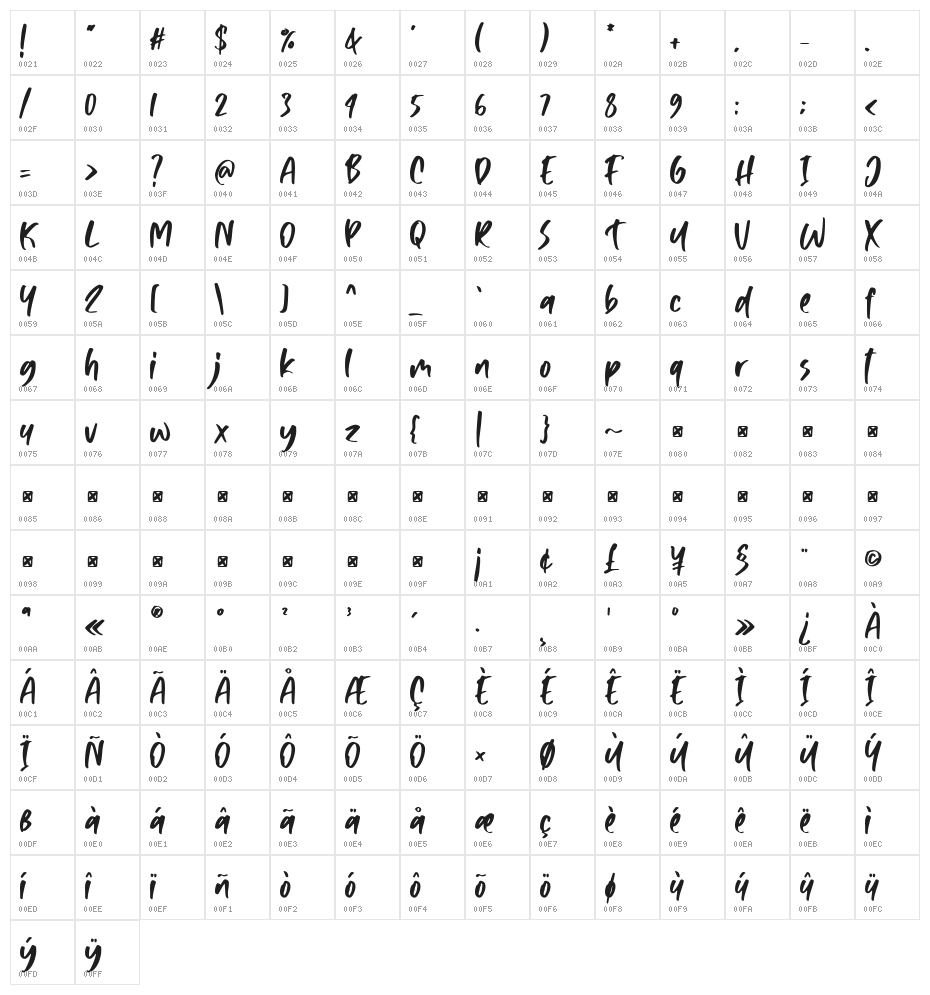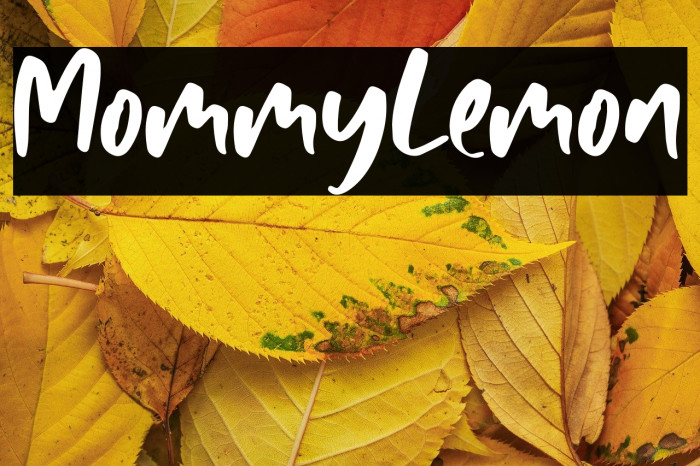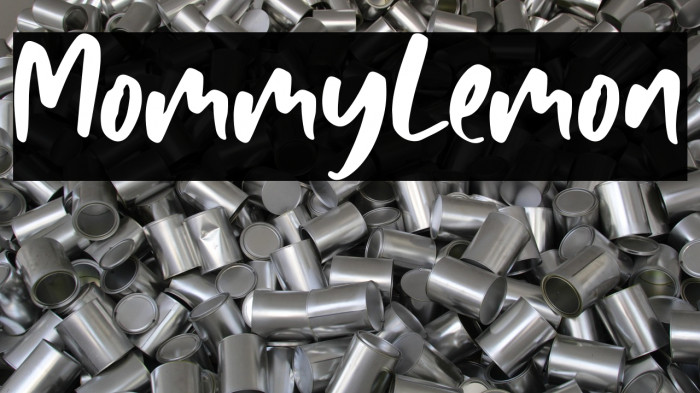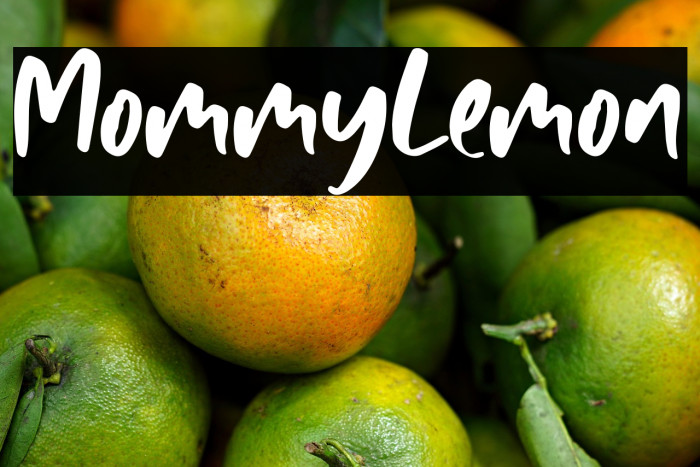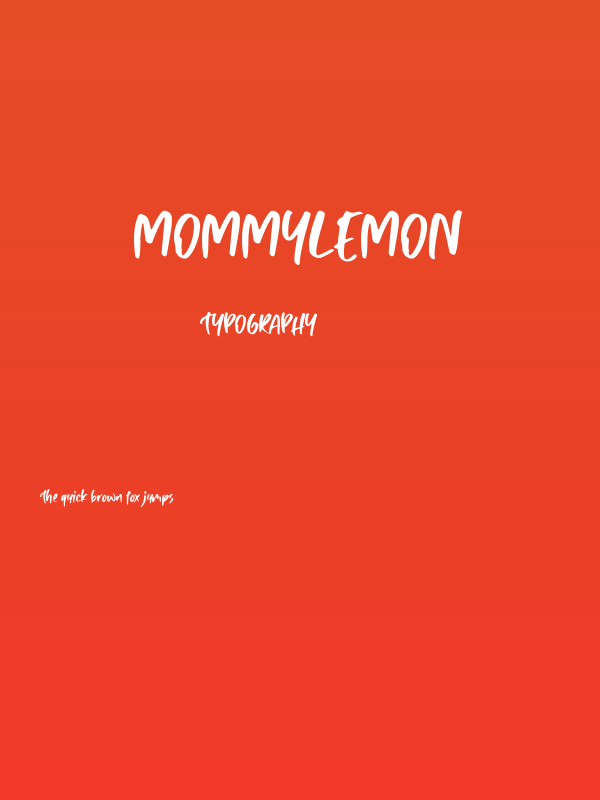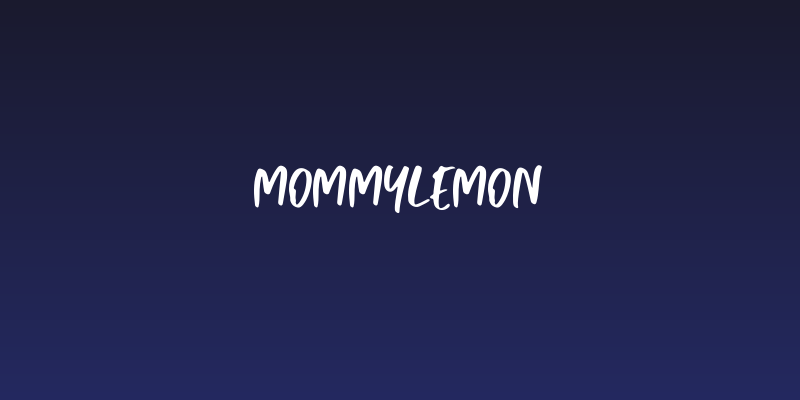
MommyLemon Font
MommyLemon Description
This font features a bold and expressive handwritten style, characterized by its fluid and dynamic strokes. The letters exhibit a playful and energetic appearance, with varying thickness that adds a sense of movement and personality. The uppercase and lowercase letters maintain a consistent style, while the numbers and special characters complement the overall design. The font's informal and artistic nature makes it suitable for creative projects that require a personal touch.
| Proposed Projects | Ideal for greeting cards, posters, social media graphics, and branding projects that require a personal and artistic flair. |